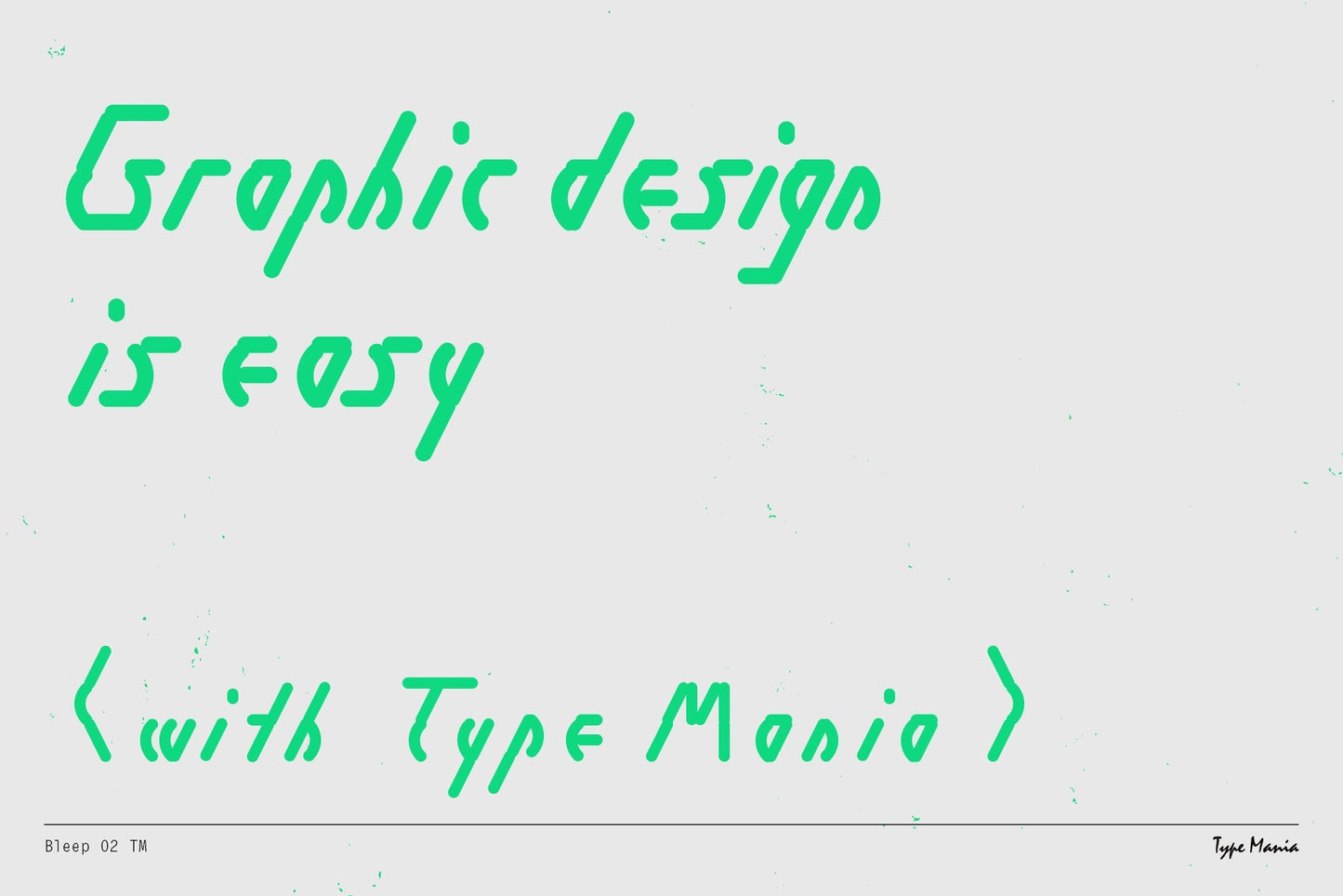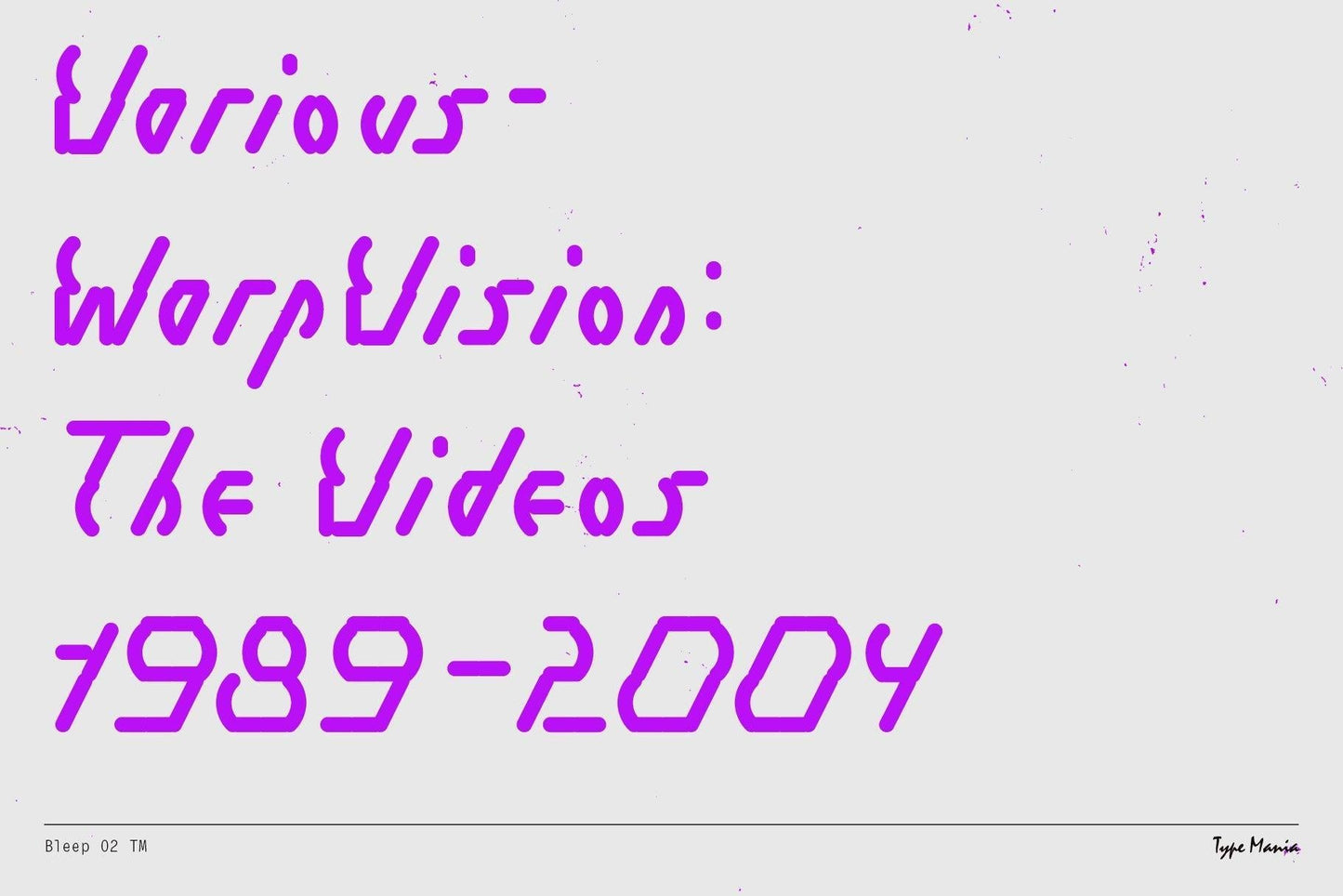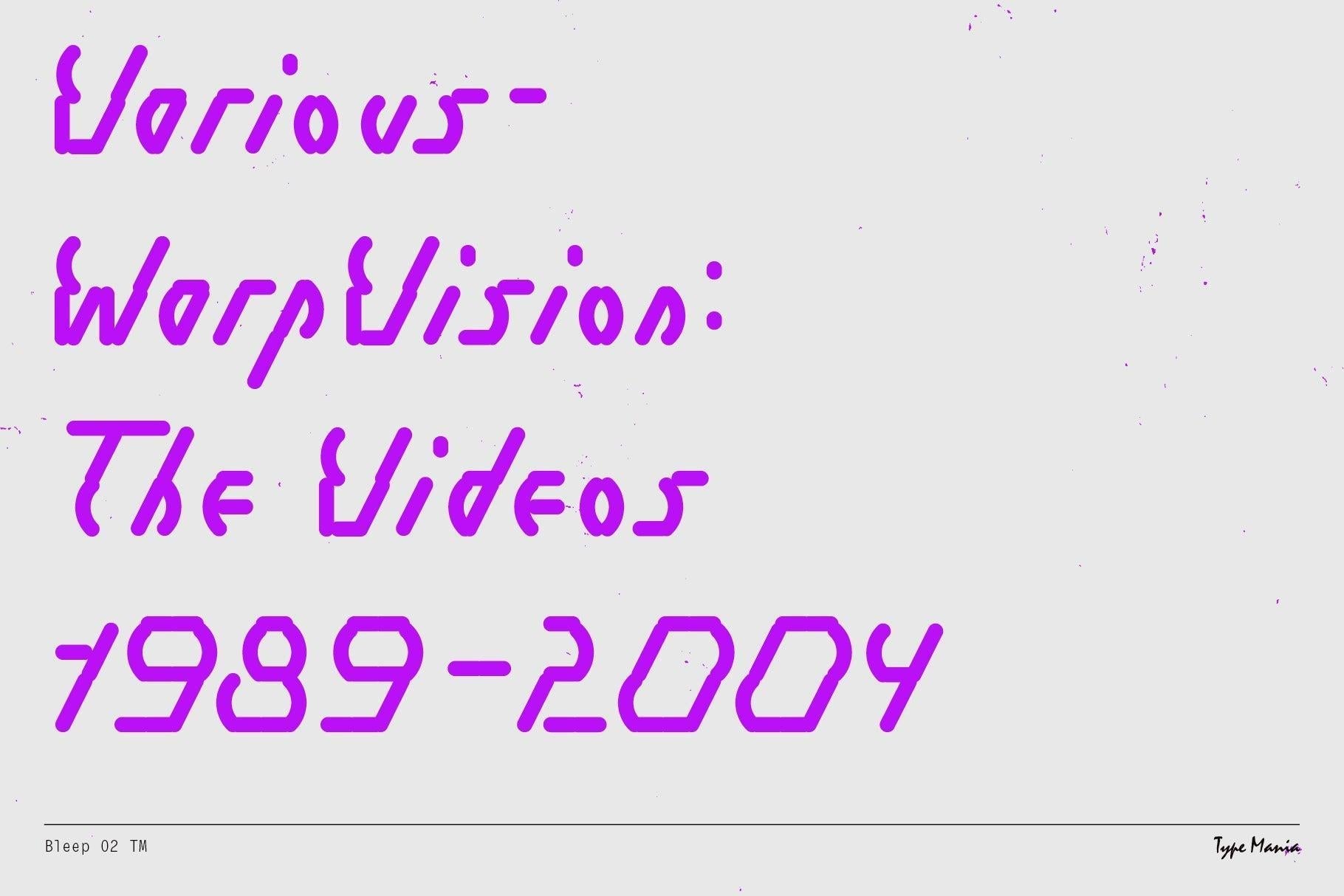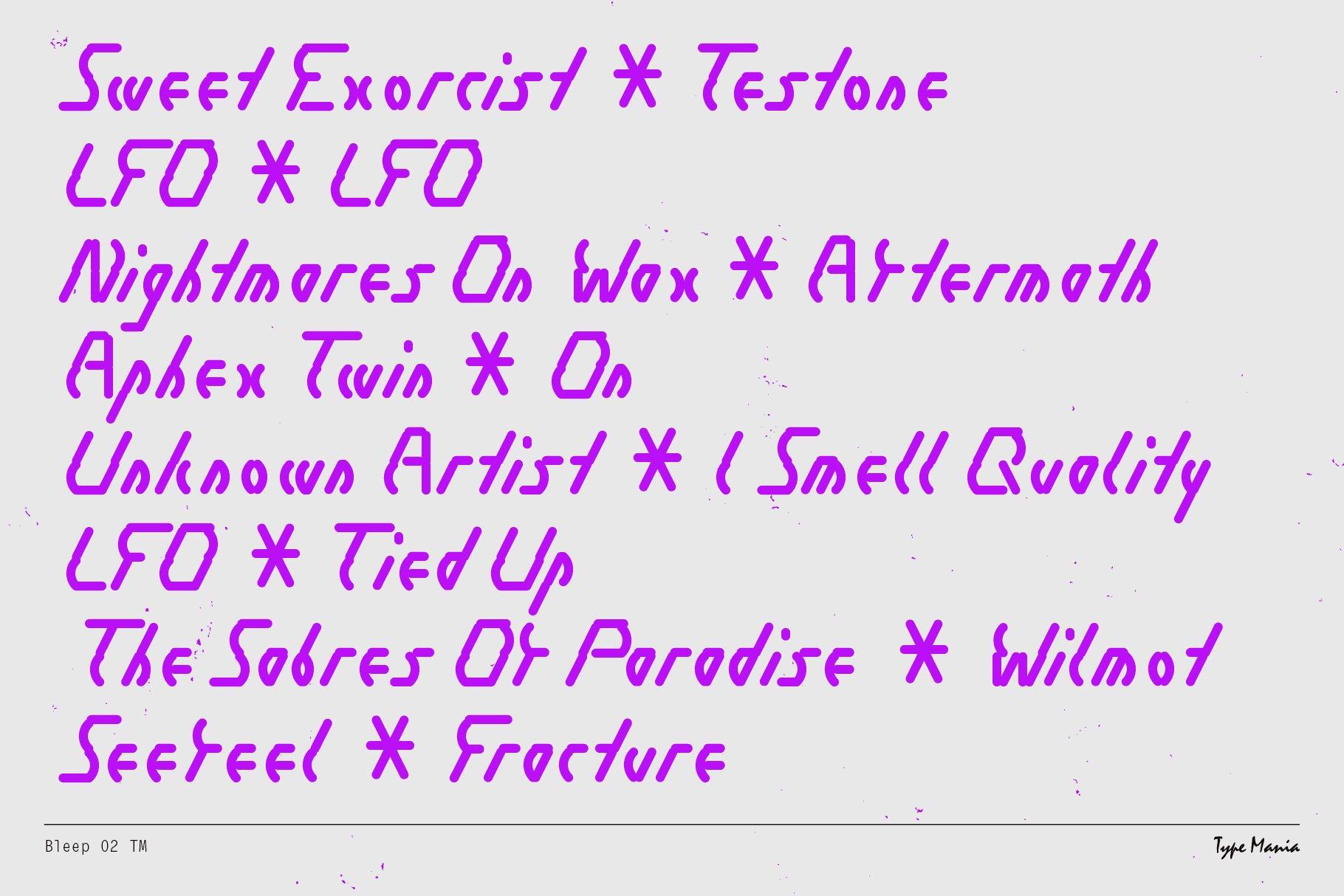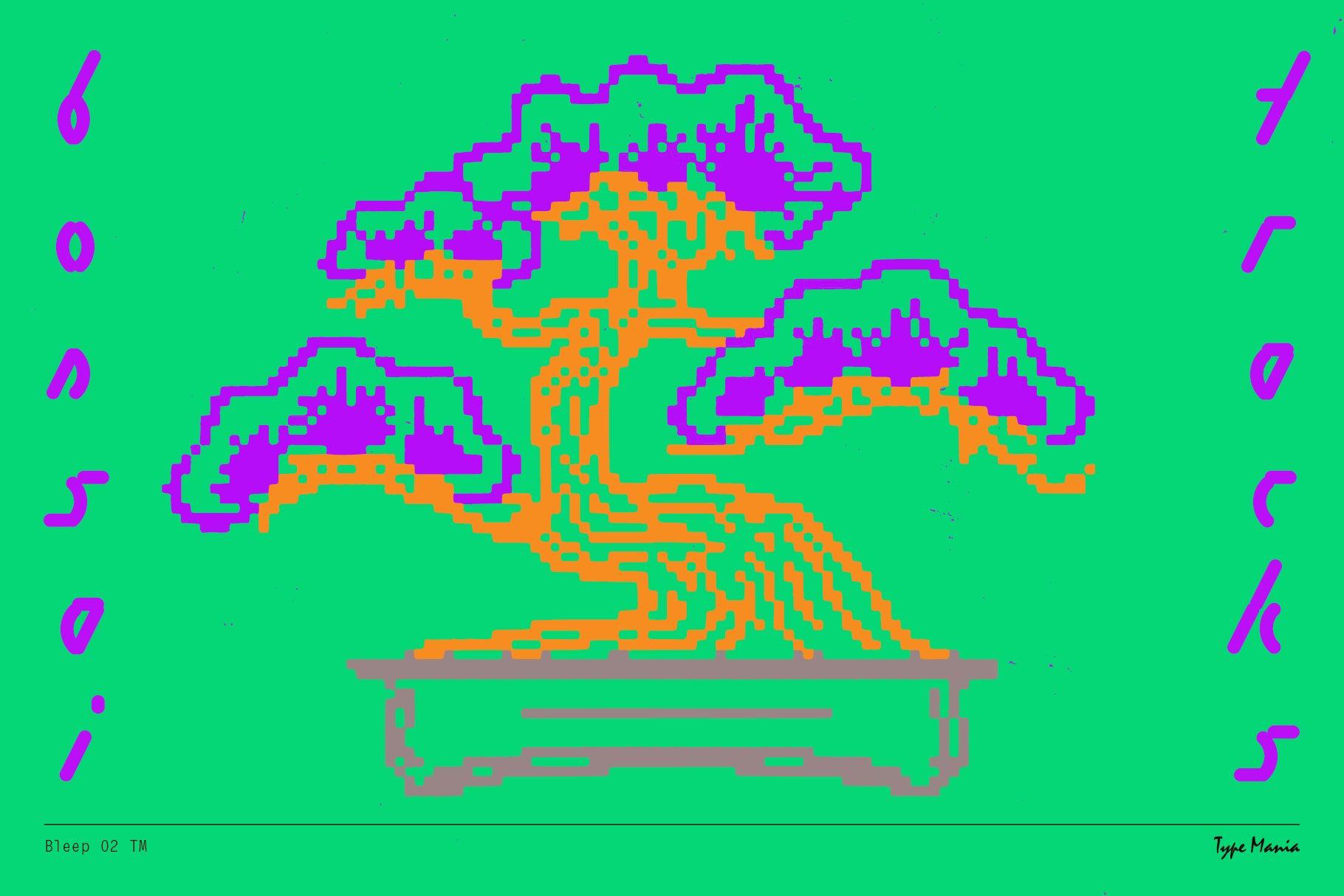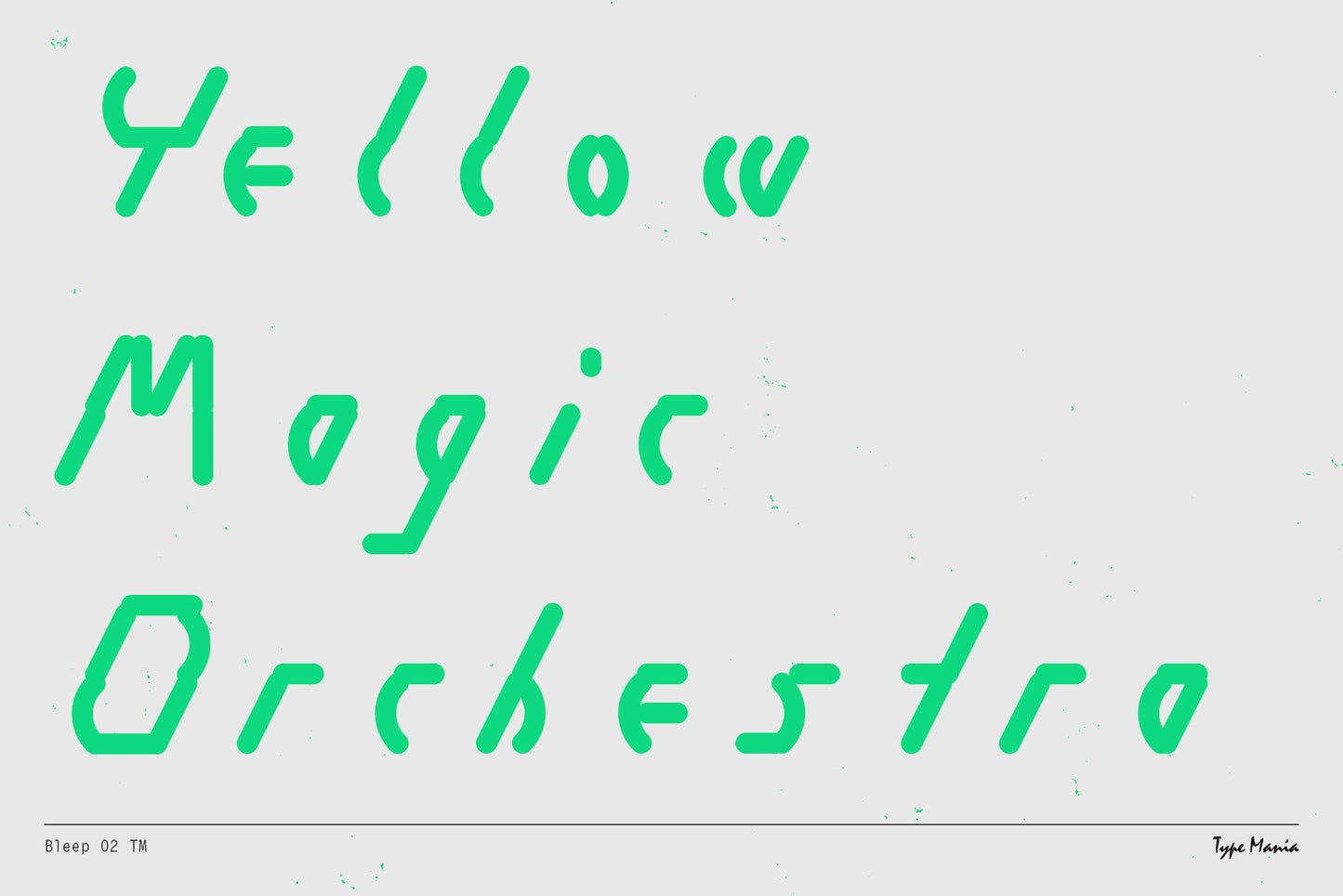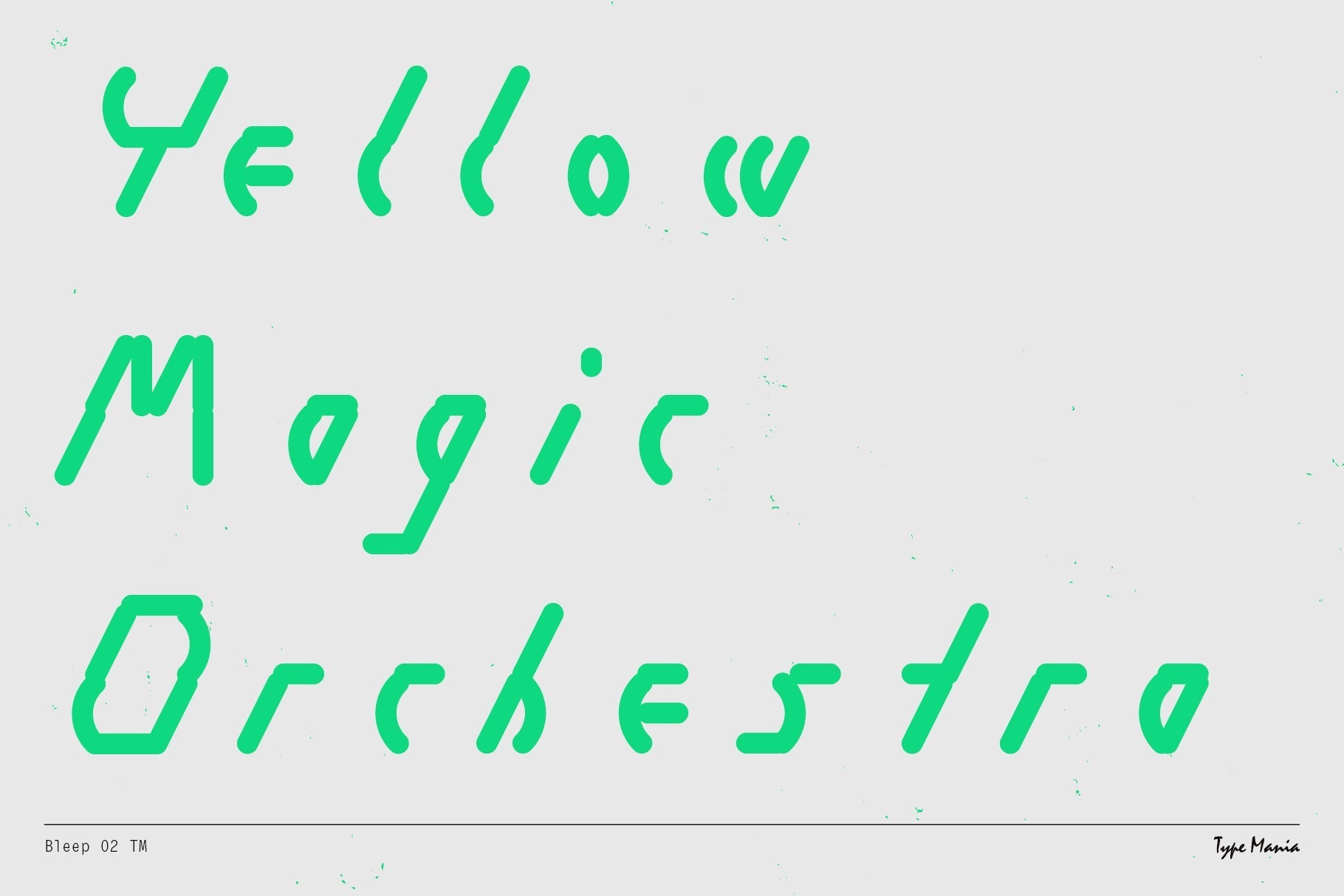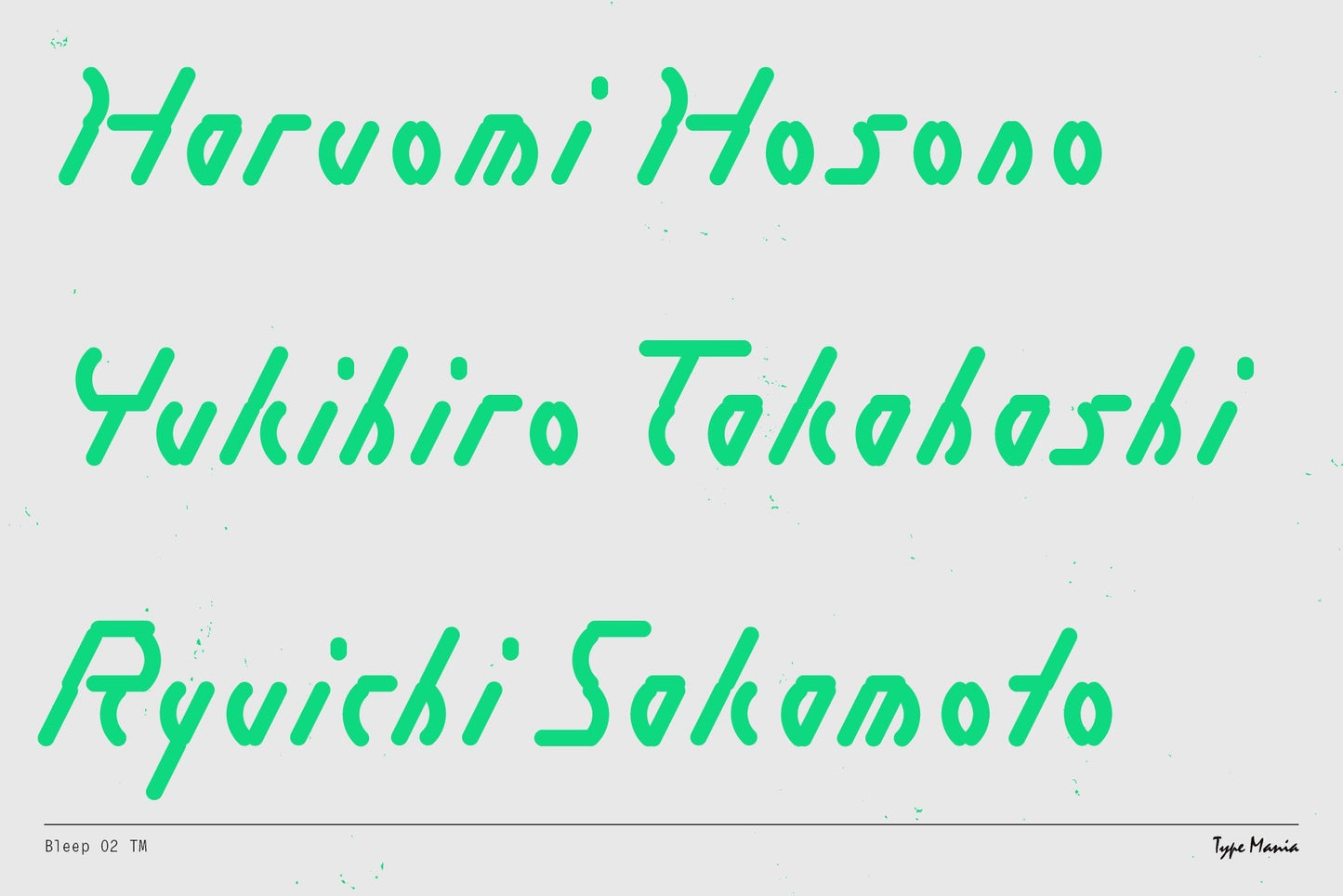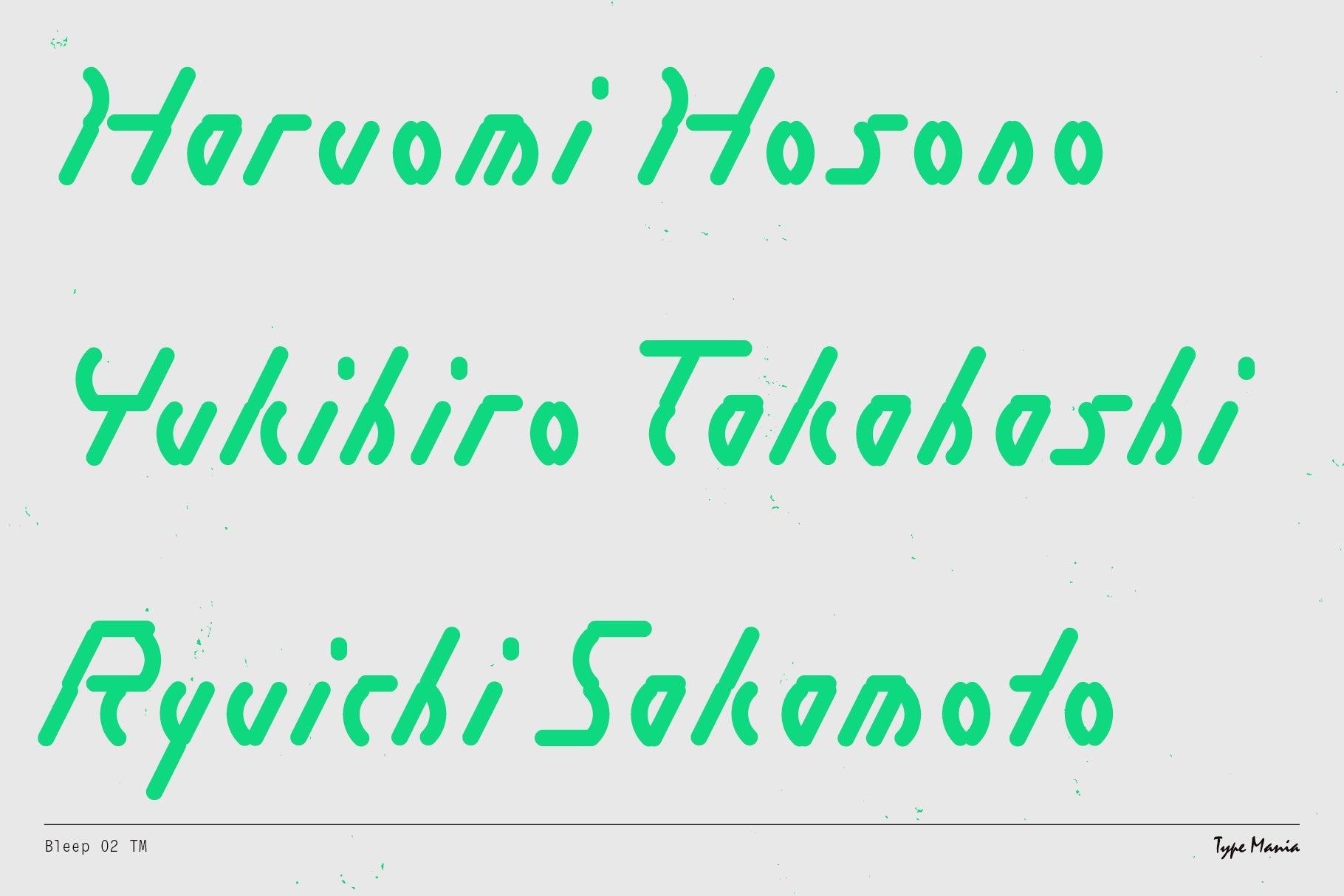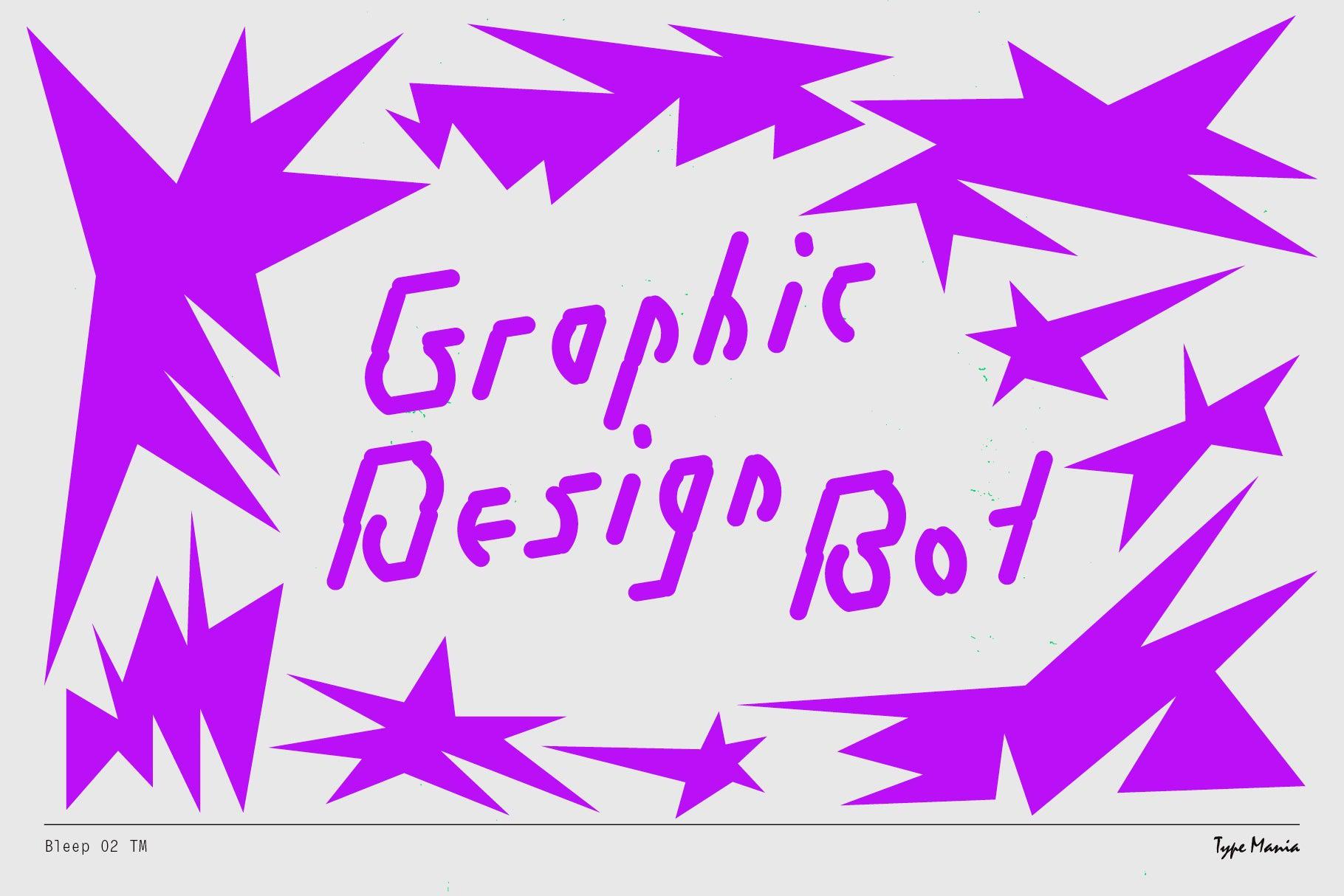
Bleep 02 TM
The sister of Bleep 01 TM, Bleep 02 TM brings the same experimental cozy vibes, but in italic. Whether you are a designer, developer, or digital artist, Bleep 02 TM offers a unique mix of modern aesthetics and cozy retro feels, perfect for projects that call for a distinctive visual identity 🤌🤌